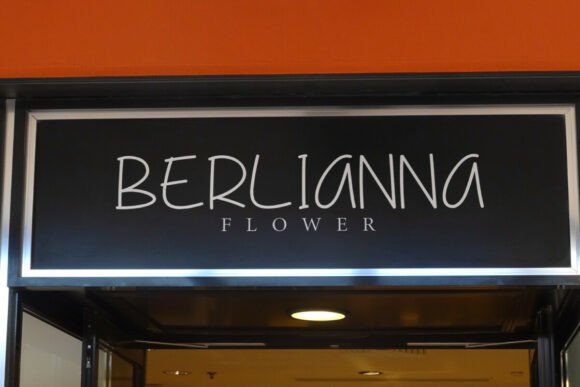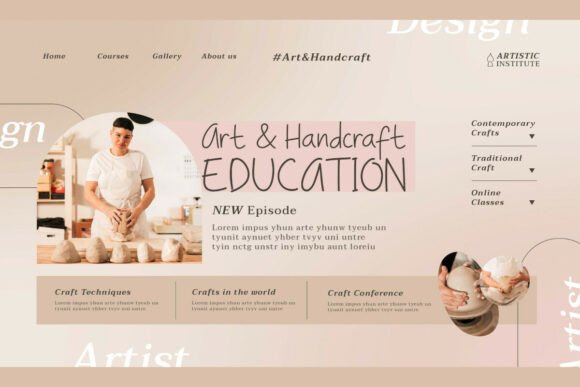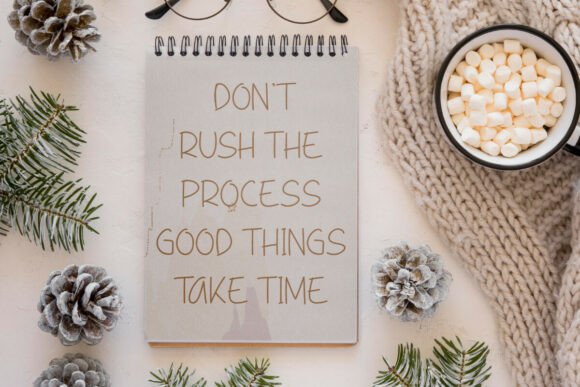
Introduction to Just Beginning Font
Capture the delicate beauty of a handwritten note with the Just Beginning font.
This typeface is the epitome of minimalism and grace, featuring thin, monolinear strokes that mimic a fine-liner pen on a fresh sheet of paper The Just Beginning typeface offers a sense of airy sophistication and vulnerability, making it perfect for brands that value honesty, simplicity, and a β€œless is more” philosophy.
Key Features of Just Beginning Font
Why Choose Just Beginning Font?
Just Beginning Font offers exceptional quality and versatility, making it a valuable addition to your design toolkit. Whether you’re creating for personal projects or commercial use, Just Beginning Font delivers professional results.